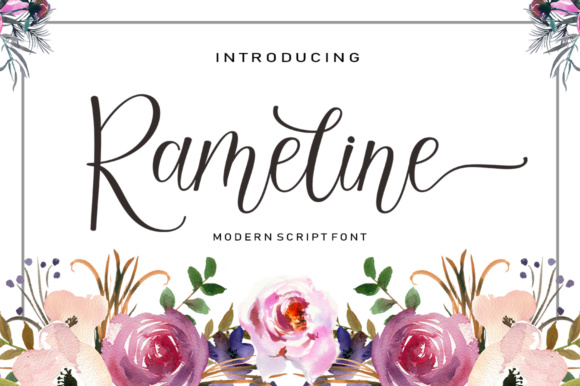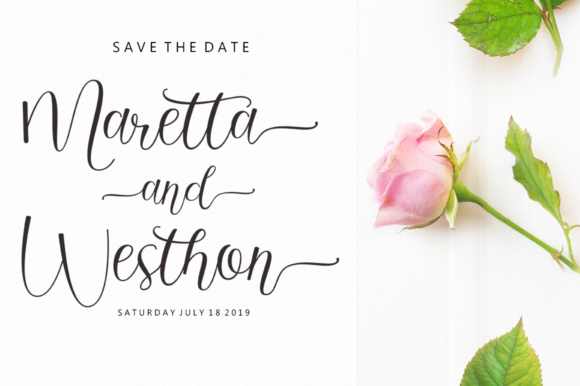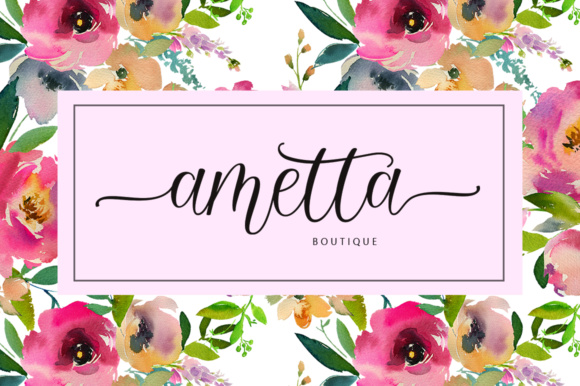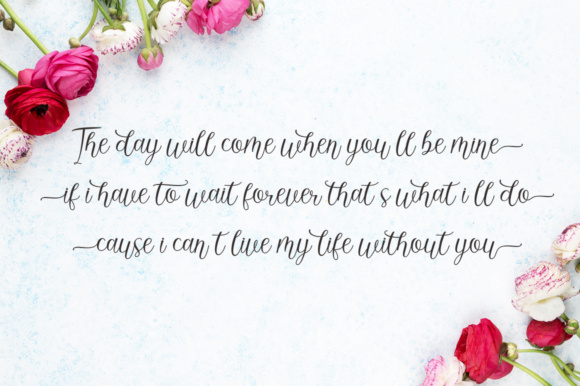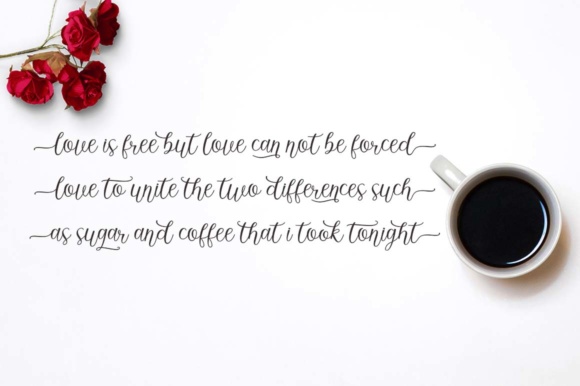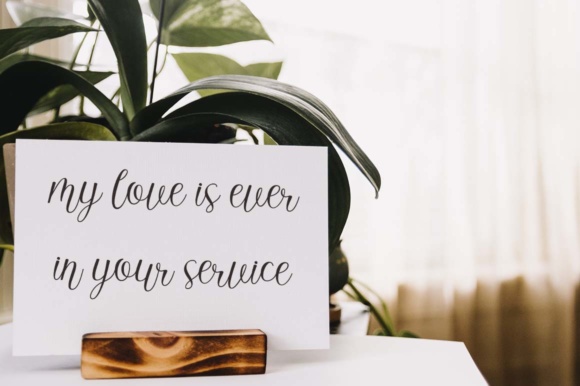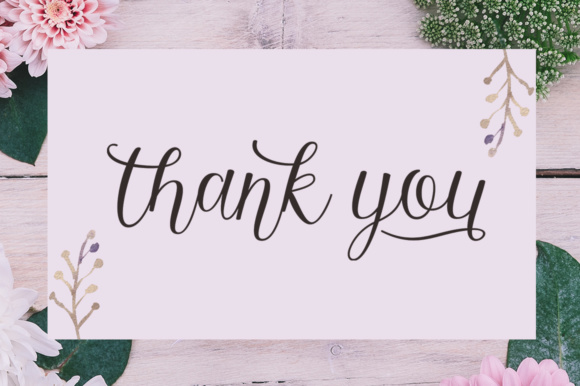
Rameline Script Font
About Rameline Script Font
The Rameline is a modern calligraphy script which comes in a regular and bold version. It has a casual yet elegant feel which makes it perfect for logos, invitations, branding, headlines, and much more!